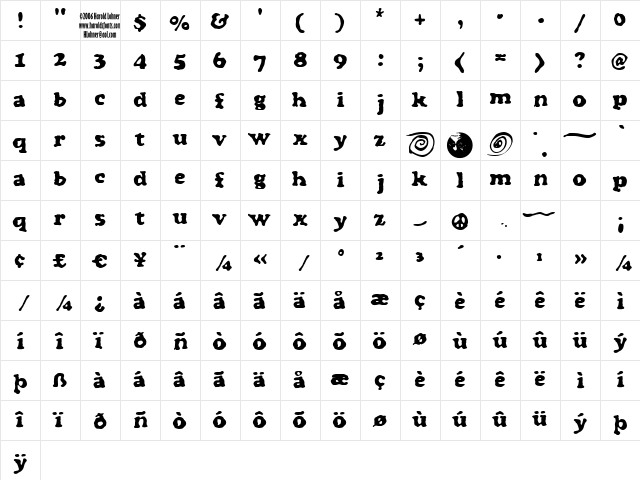
BlooperSolid Regular
Design Context for BlooperSolid Typeface
BlooperSolid is a composed and adaptable typeface that performs quietly and consistently across a wide range of design contexts.